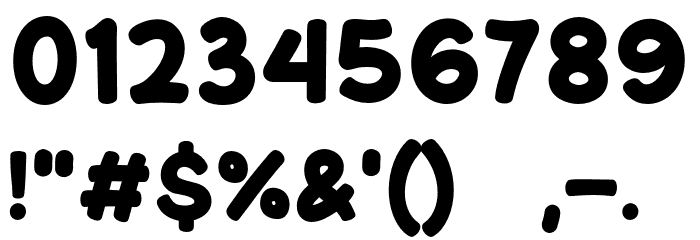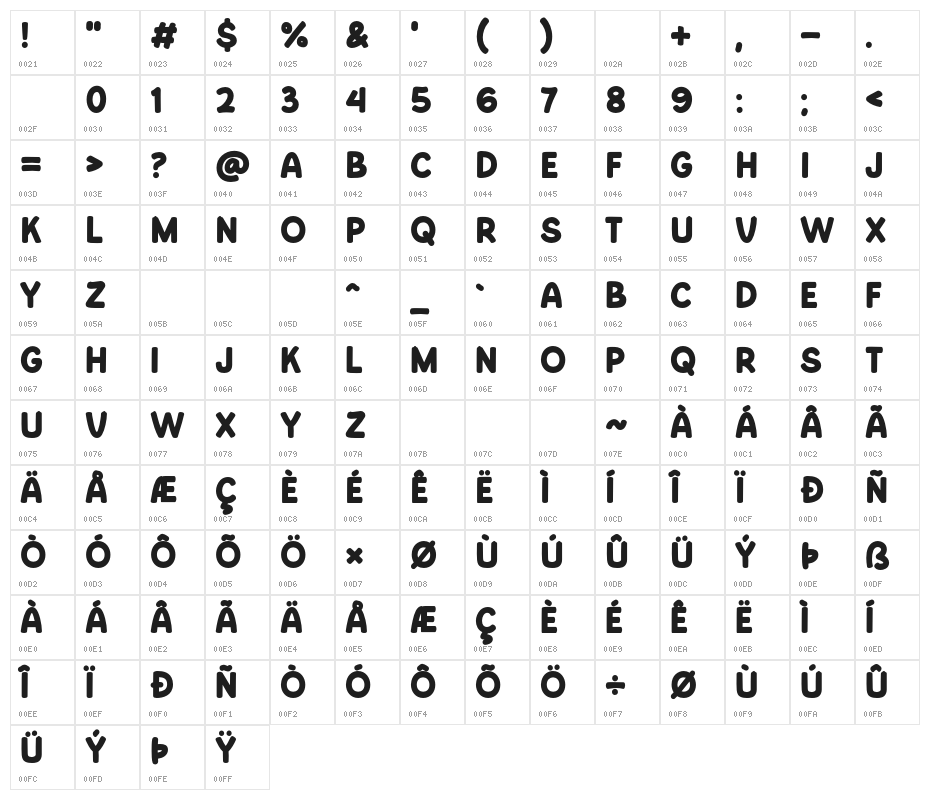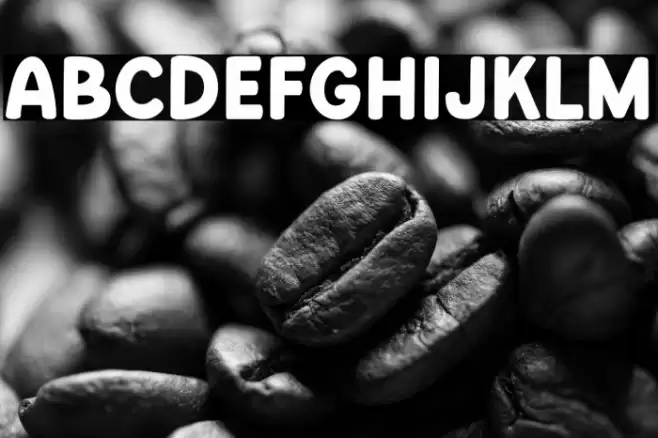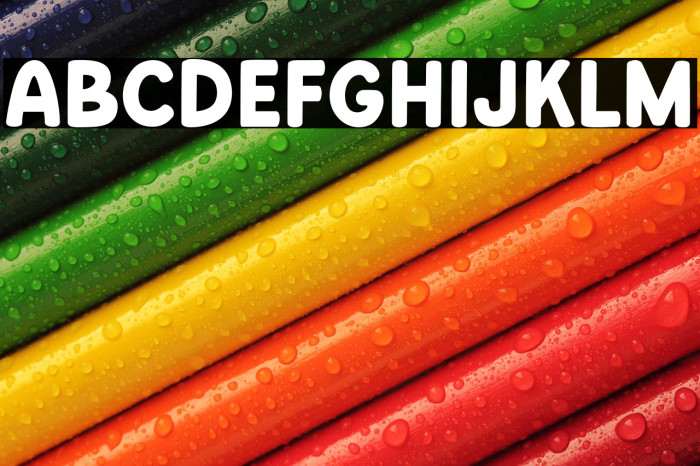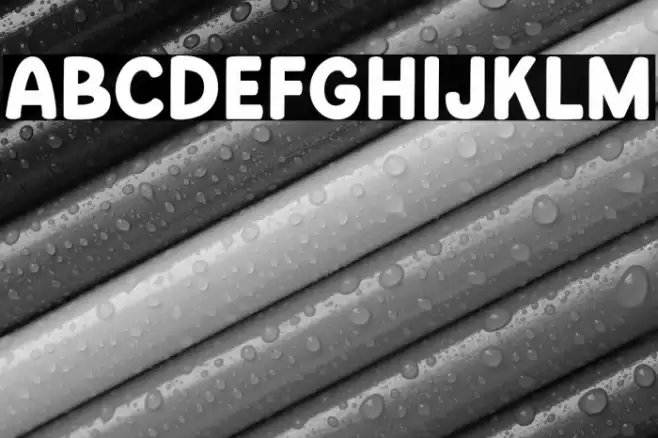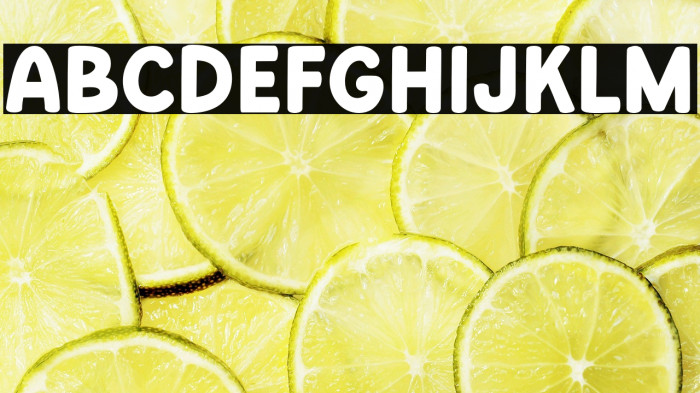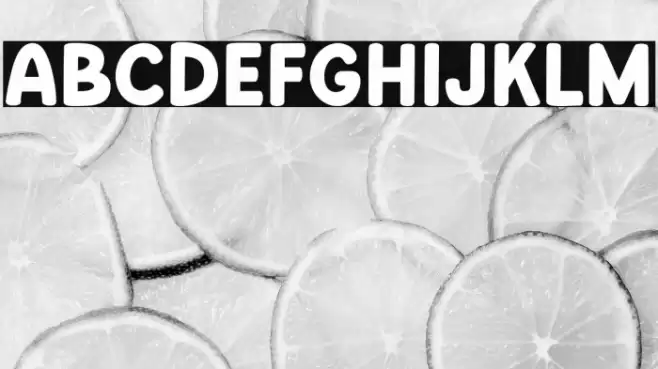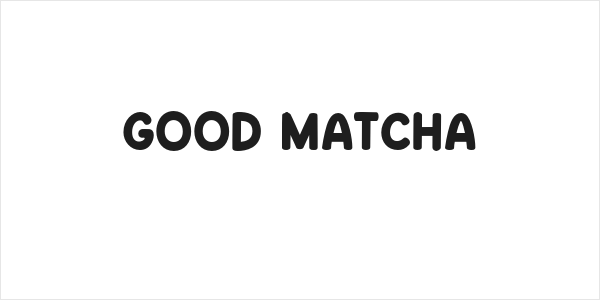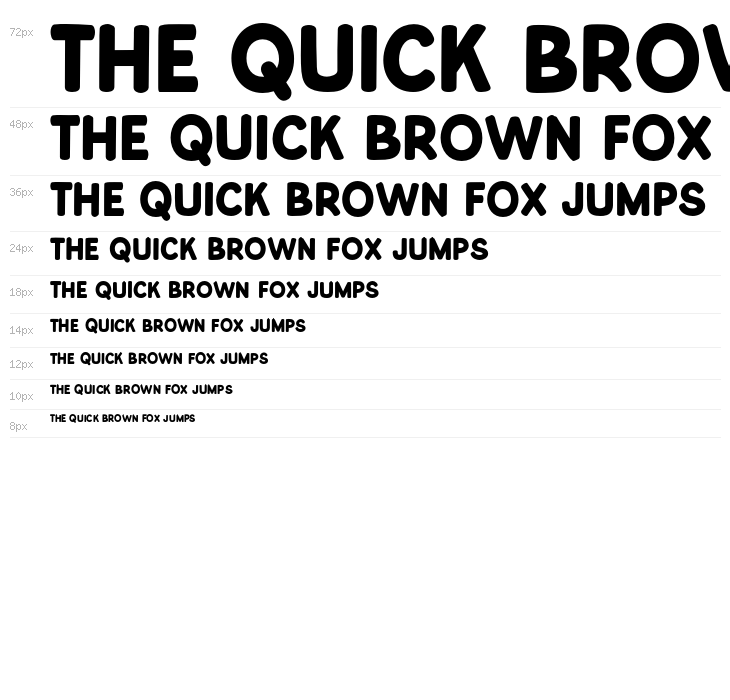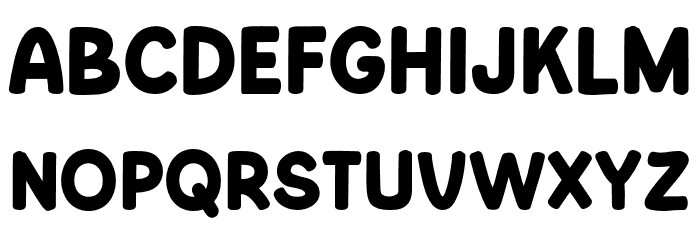
Good Matcha Font
Good Matcha Description
This font features a playful and bold style with rounded edges, giving it a friendly and approachable appearance. The characters are uniformly thick, providing a consistent and cohesive look across both uppercase and lowercase letters. The numbers and special characters maintain this rounded and bold aesthetic, ensuring readability and visual appeal. The font's design is modern yet whimsical, making it suitable for a variety of creative applications. Its boldness and rounded forms make it stand out, while the consistent stroke width adds to its legibility.
| Overall Style | Playful, Modern |
| Proposed Projects | Ideal for children's books, playful branding, posters, and social media graphics. |